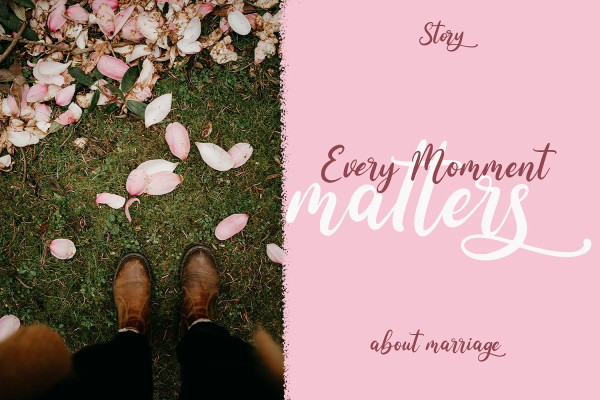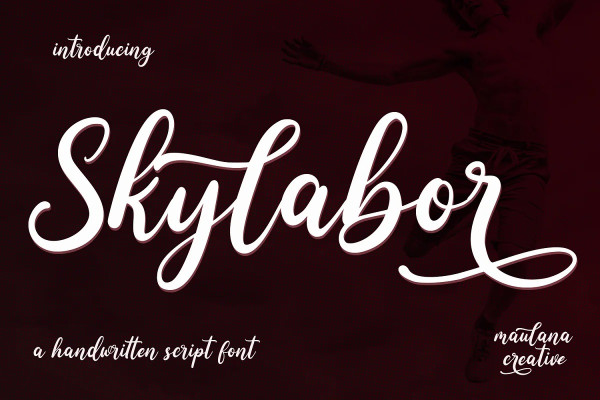
Skylabor Font
Skylabor Font is a fancy handwritten script font. With bold contrast stroke, fun character with a bit of ligatures and alternates. To give you an extra creative work. Skylabor font support multilingual more than 100+ language. This font is good for logo design, Social media, Movie Titles, Books Titles, a short text even a long text letter and good for your secondary text font with sans or serif. Make a stunning work with Skylaborfont.